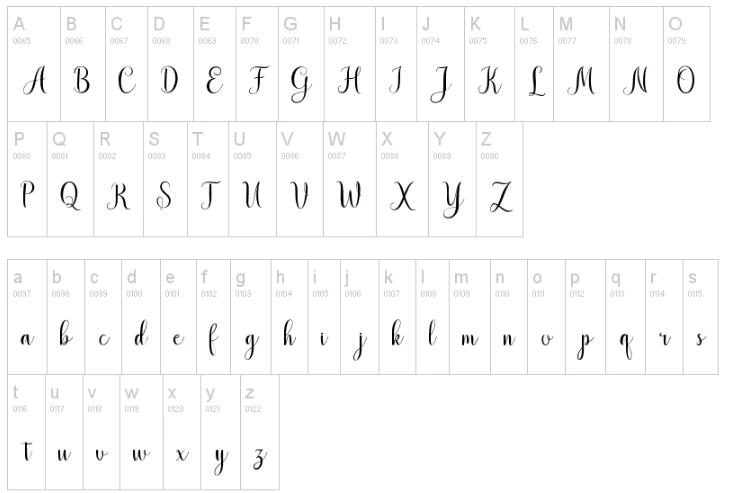
Introduce a new typeface, Mistletoe Font Duo. It is a one-of-a-kind combination of traditional and contemporary fonts. It’s a mix of ups and downs in smooth, clean, and simple style, like dance letters. Mistletoe Font Duo includes an alternate glyph and a lovely swirl in a font with style settings, ligatures, and more. Also, this Font has offered PUA Unicode (specially coded typefaces) so that an artisan or designer may readily access all of the different characters.
Mistletoe is suitable for logo configuration, book covers, cites locations, printed thought processes, and more, thanks to all of its excellent features. Mistletoe text style is the best and most reasonable textual way for specific structuring initiatives, to the extent that I had sought for it.
| Name | Mistletoe Font |
| Style | Script |
| Designer | Lauren Ashpole |